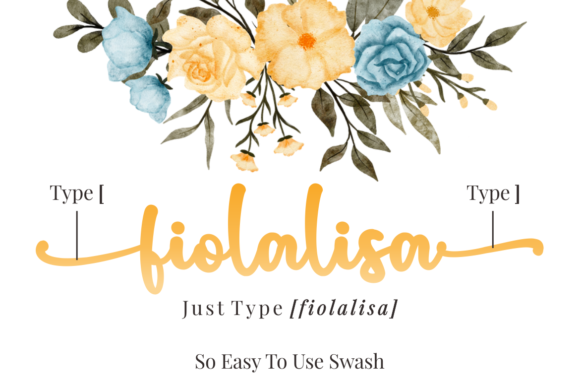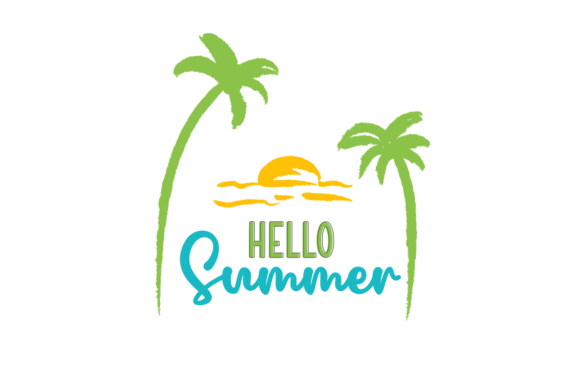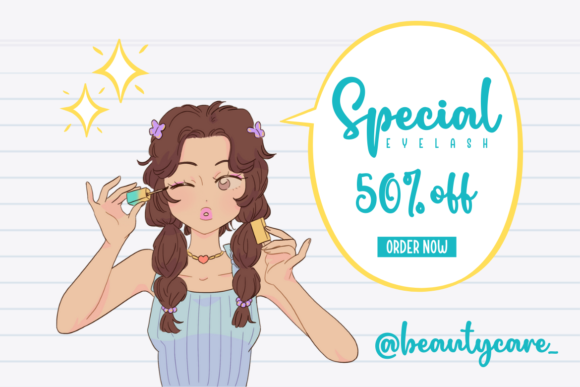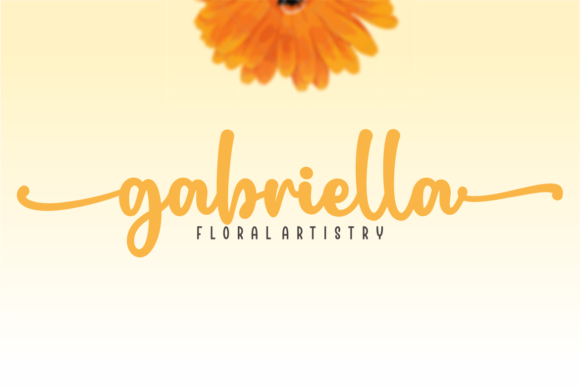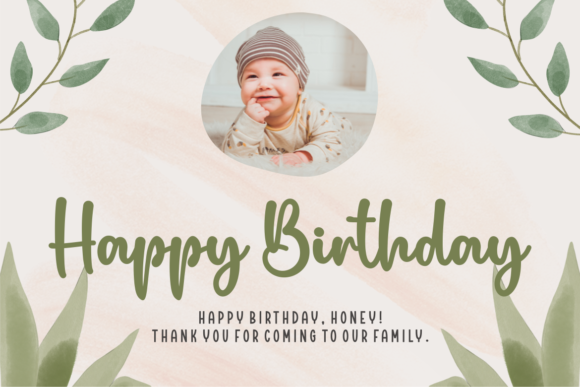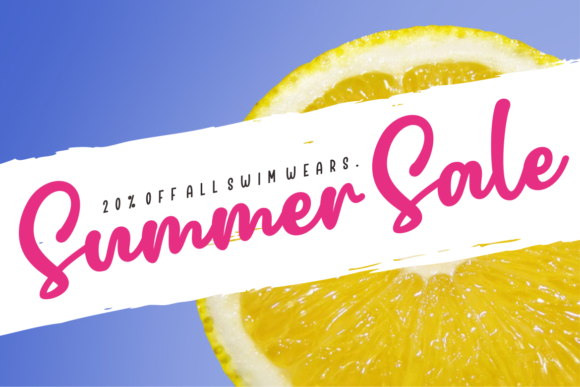
Introduction to Fiolalisa Font
Have you ever been working on a creative project, pouring your heart and soul into it, only to realize that the perfect font is missing? This is exactly what happened to many designers when they discovered the Fiolalisa Font. A beautifully designed duo of fonts that perfectly complement each other, Fiolalisa Font is a game-changer for any project.
Imagine being able to add a touch of elegance and sophistication to your designs with just a few clicks. That’s exactly what Fiolalisa Font offers. Its clean and contemporary shape makes it a high-quality design resource that can elevate any project. Whether you’re working on a personal or professional project, Fiolalisa Font is a valuable asset that can help you stand out from the crowd.
Key Features of Fiolalisa Font
- High-quality design for creative projects, suitable for various applications such as logos, graphics, and typography.
- Transparent background, allowing for easy customization and blending with other design elements.
- Unique, elegant design that sets it apart from other fonts, making it an excellent choice for designers seeking a distinctive look.
Honest Review: Fiolalisa Font
What works well is the high quality of the font, which is crisp and clean. It’s also available with a transparent background, making it easy to work with.
- ✨ High-quality font with a clean design
- ✨ Available with a transparent background
However, there are a few limitations to keep in mind. The font selection is limited to a single style, which may not be suitable for designers who need a range of options.
- ⚠️ Limited font selection (only one style available)
Overall, I’m impressed with the Fiolalisa Font. It’s a solid choice for designers who want a high-quality, elegant font for their creative project. While it may not be perfect, it’s definitely a great starting point.
The Fiolalisa Font is a high-quality, free download design resource ideal for creative projects. Its unique design and transparent background make it a versatile tool for designers.
Tips for Getting the Most Out of Fiolalisa Font
To get the most out of Fiolalisa Font, experiment with different font sizes and colors. Use the transparent background to create visually appealing designs.
The Fiolalisa Font is ideal for creative projects such as infographics, posters, and social media graphics. Its unique design and transparent background make it a versatile tool for designers.